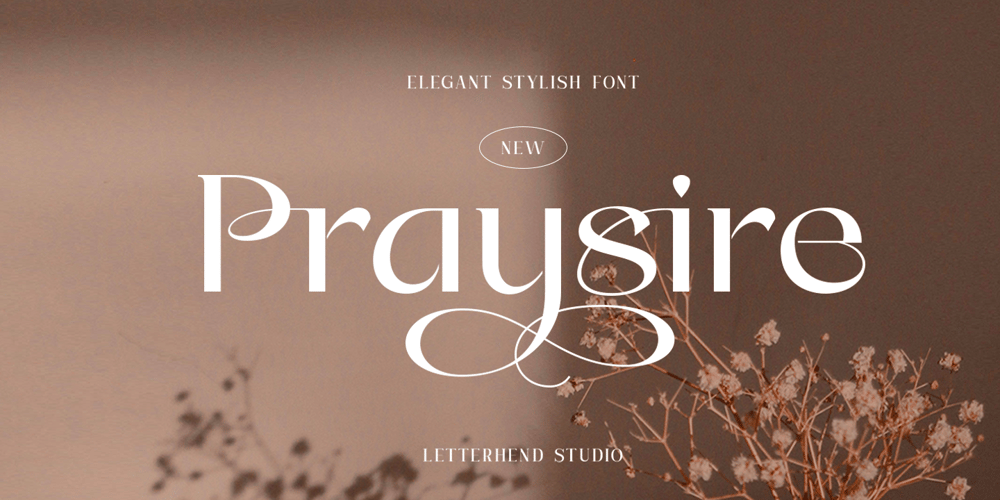
Praysire
Praysire font
Praysire Font Family was designed by Hendry Juanda and published by Letterhend. Praysire contains 1 styles and family package options. Praysire is a sophisticated sans serif with beautiful swashes. It has many alternates which you can play around to match your project, whether for a standout headline, or for a tagline, you name it. The unique letterform makes this font one of a kind! Perfectly to be applied to the other various formal forms such as invitations, labels, logos, magazines, books, greeting / wedding cards, packaging, fashion, make up, stationery, novels, labels or any type of advertising purpose.Features : uppercase & lowercase numbers and punctuation multilingual alternates & ligatures PUA encoded We highly recommend using a program that supports OpenType features and Glyphs panels like many of Adobe apps and Corel Draw, so you can see and access all Glyph variations.